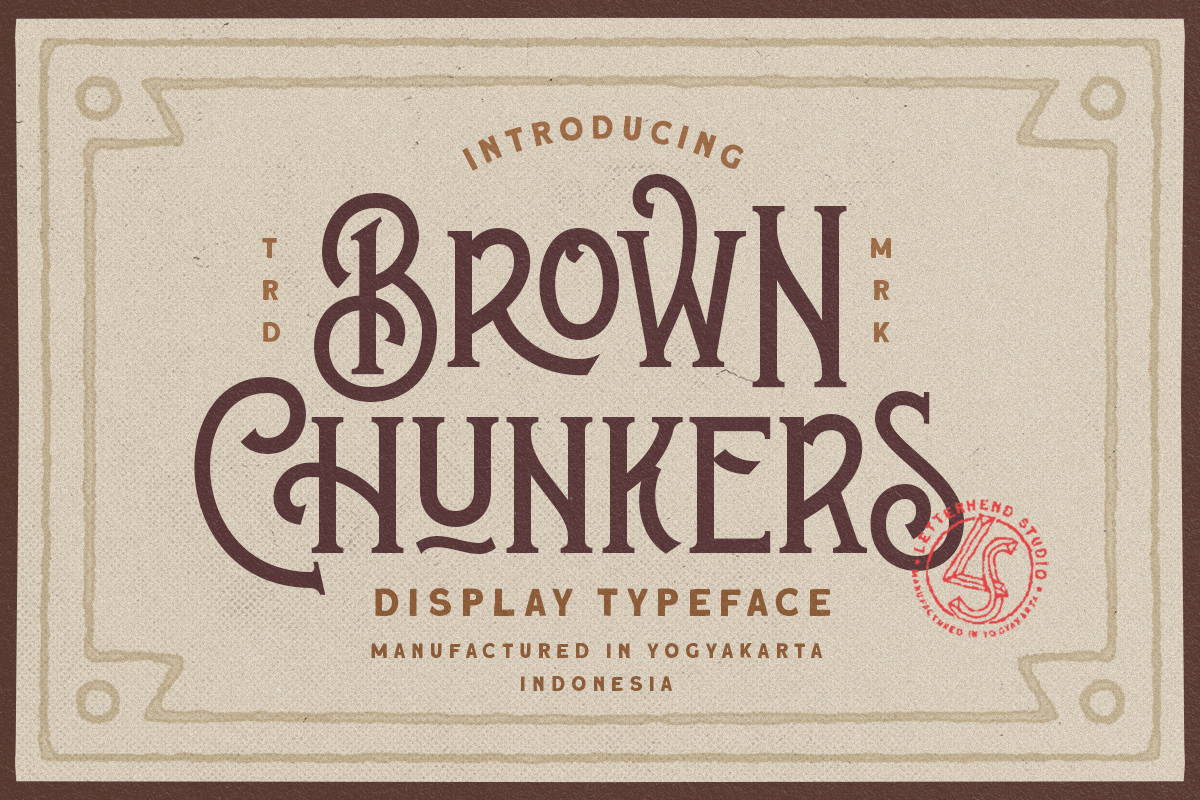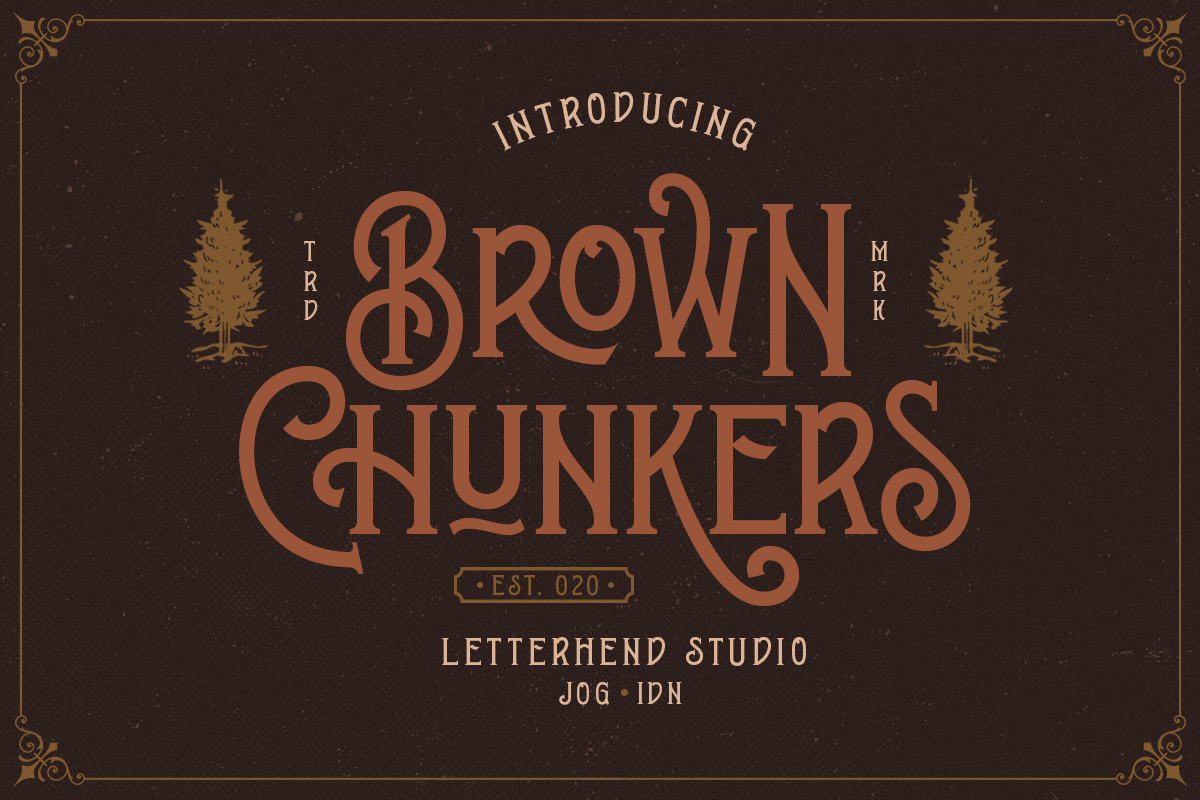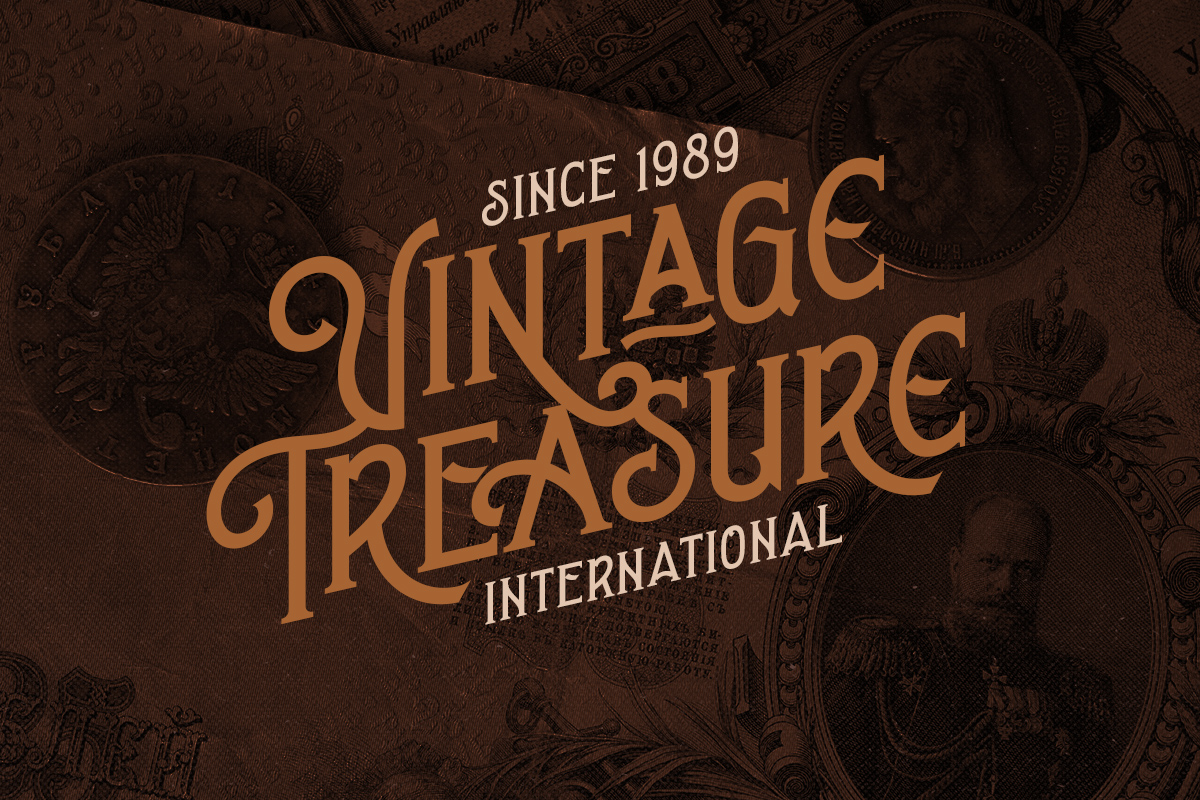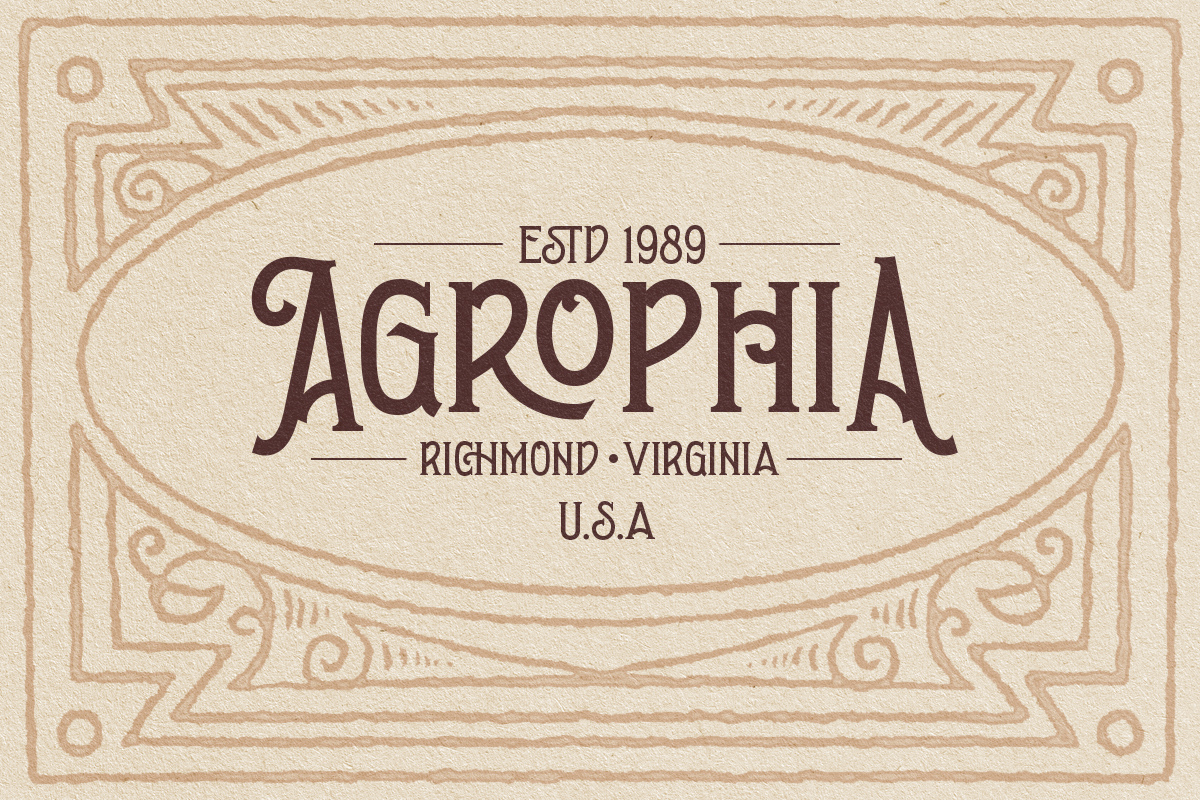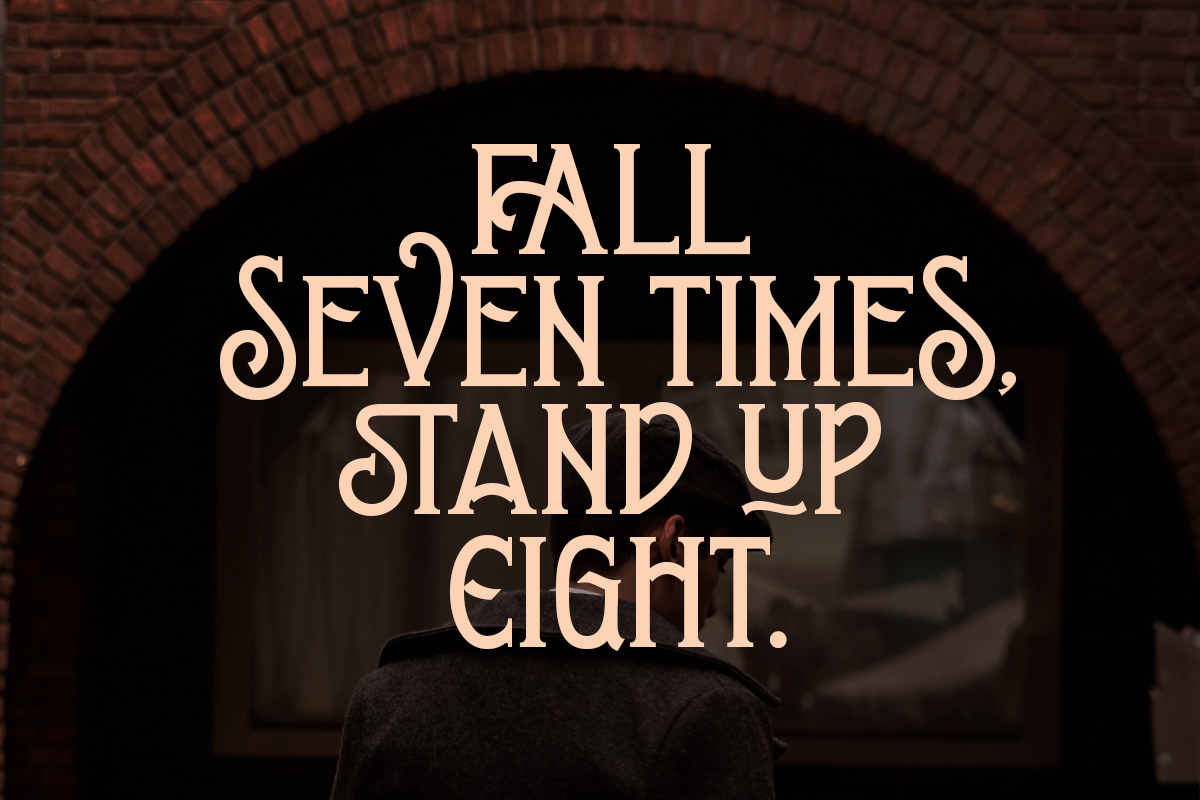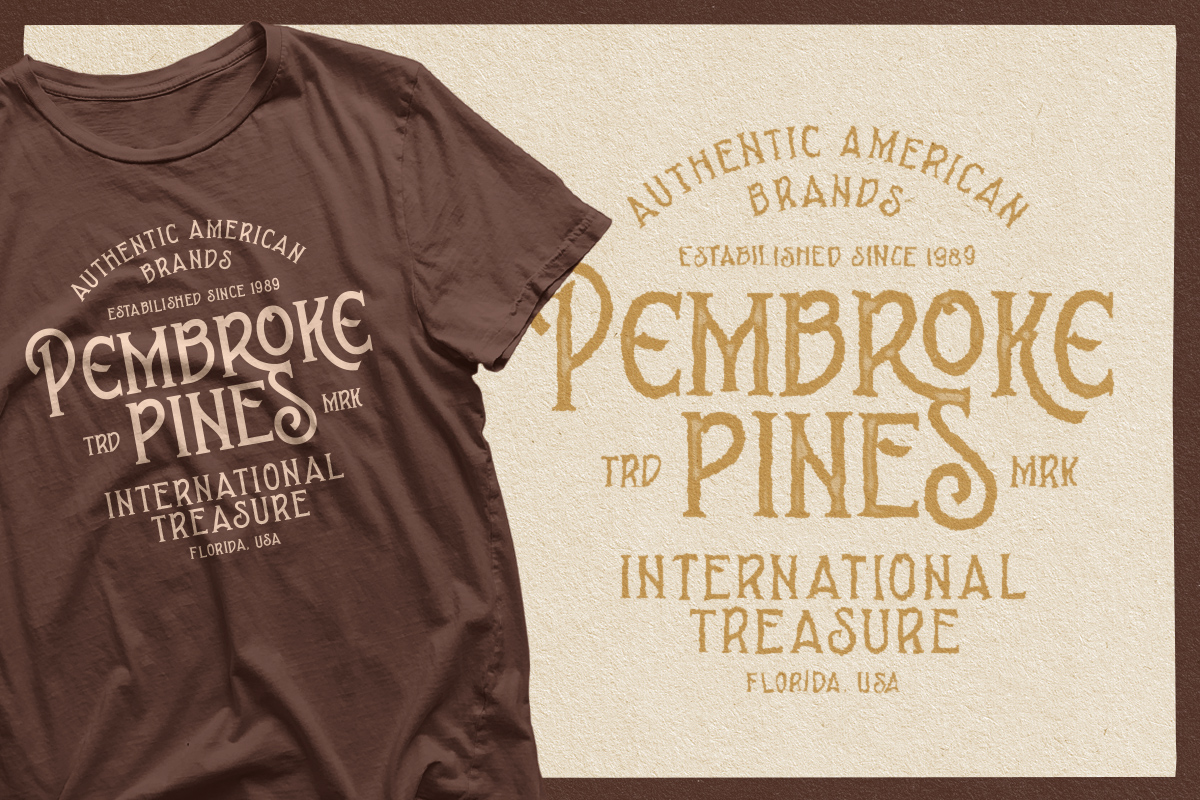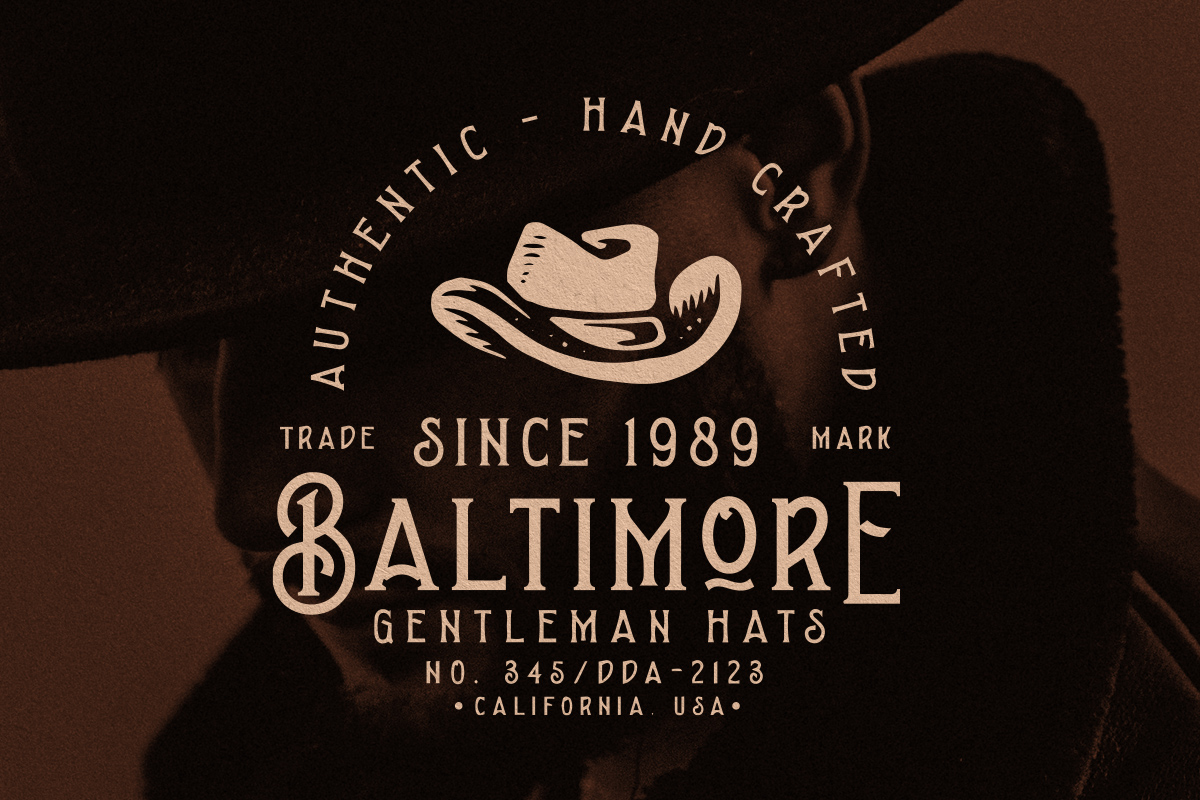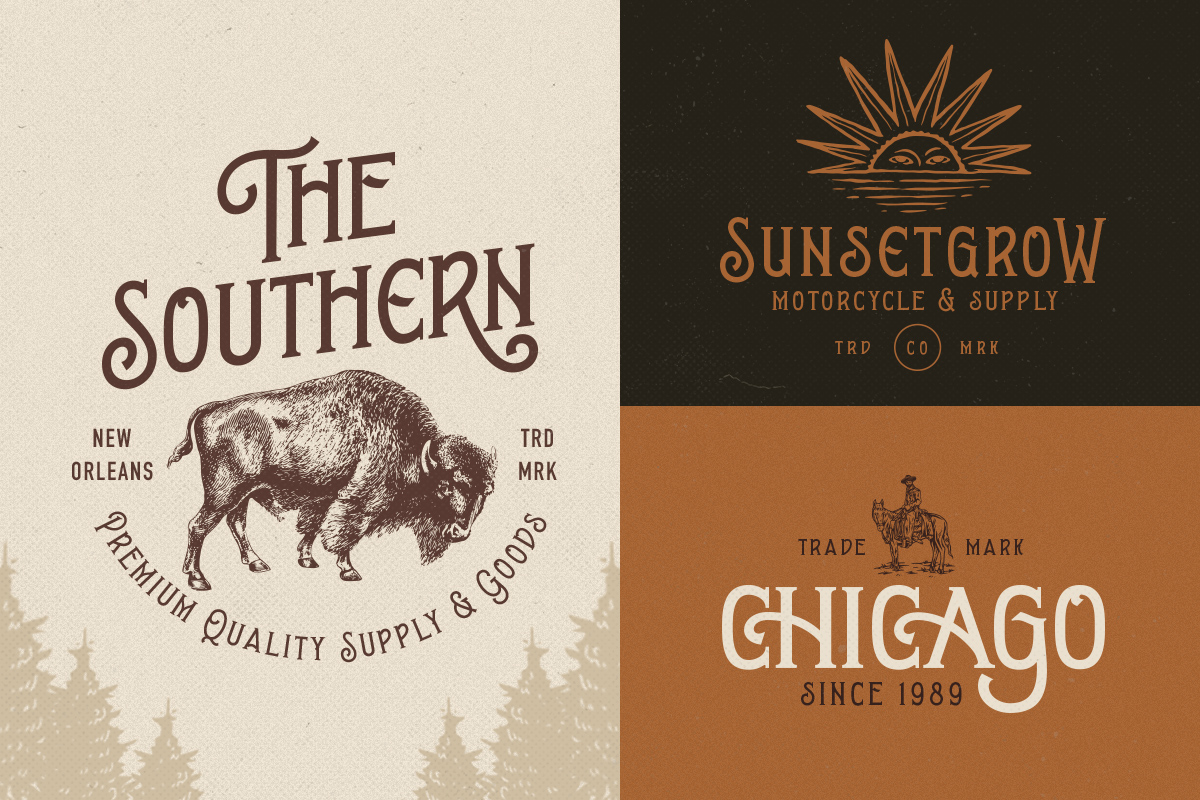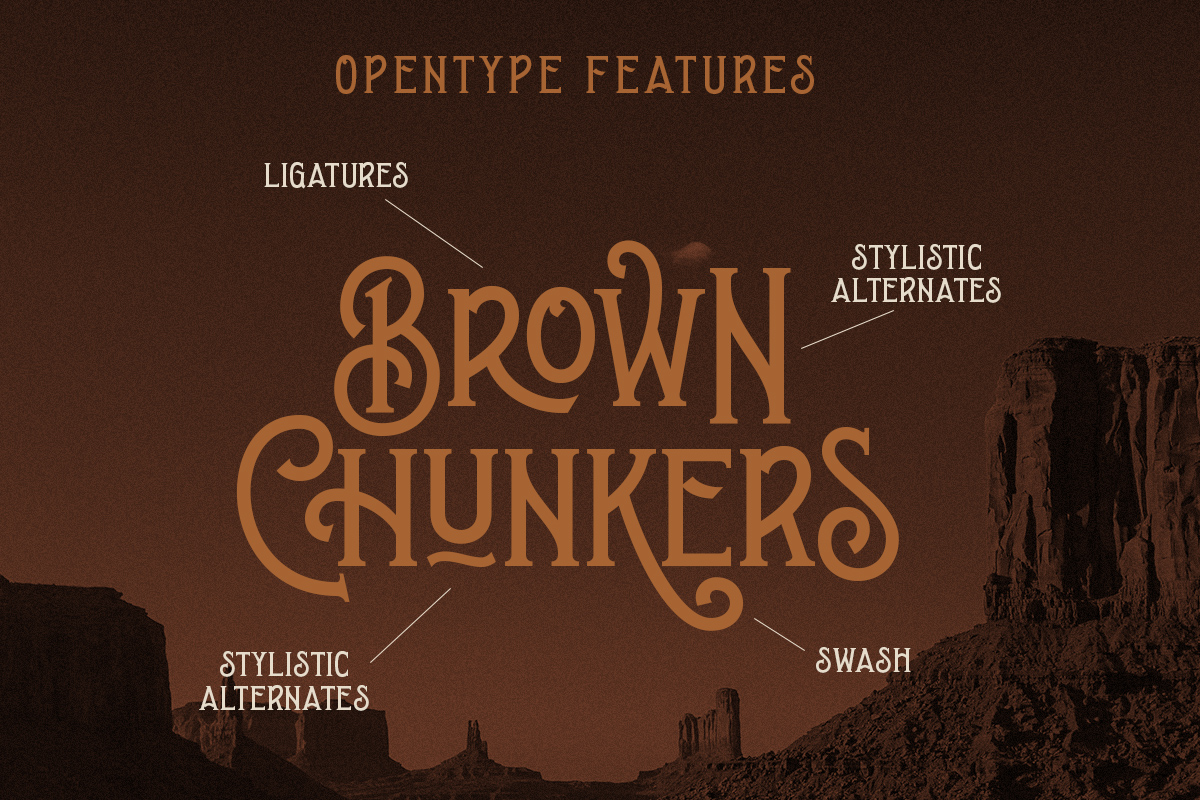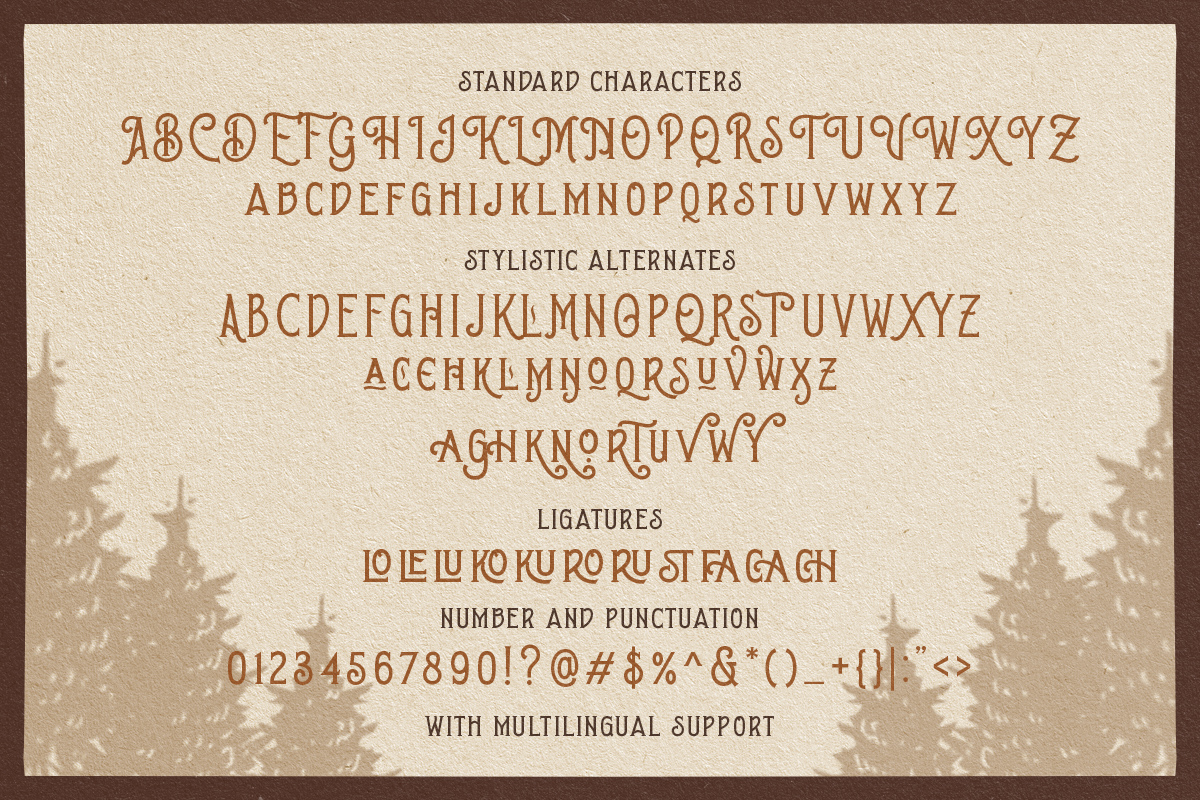
Introducing our latest display typeface named Brown Chunkers. A unique serif based typeface added with many alternates, swashes, ligatures that can make your lettering / logotype become more interesting. The clean and neat of a serif combined with the swirl swashes makes this font one of a kind!
This font perfectly made to be applied especially in logo, and the other various formal forms such as invitations, labels, logos, magazines, books, greeting / wedding cards, packaging, fashion, make up, stationery, novels, labels or any type of advertising purpose.
Features : - numbers and punctuation - multilingual - ligatures - alternates - swashes - PUA encoded We highly recommend using a program that supports OpenType features and Glyphs panels like many of Adobe apps and Corel Draw, so you can see and access all Glyph variations.